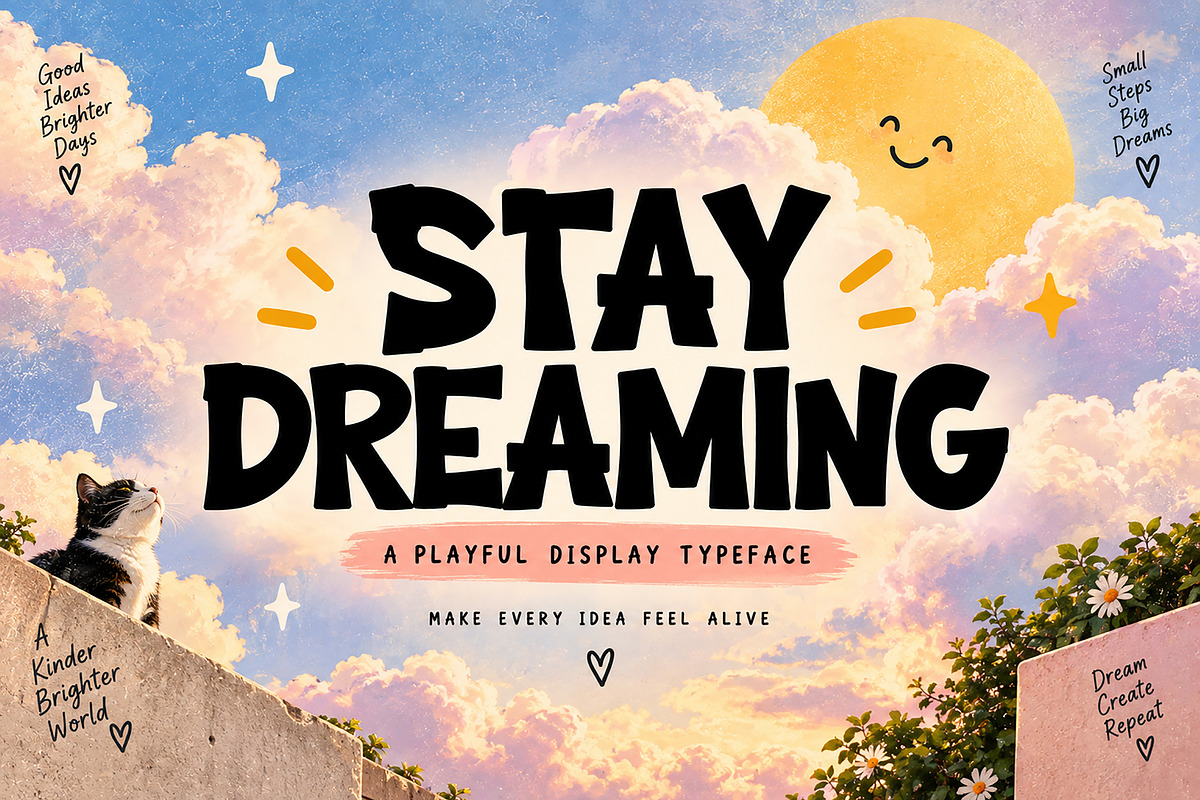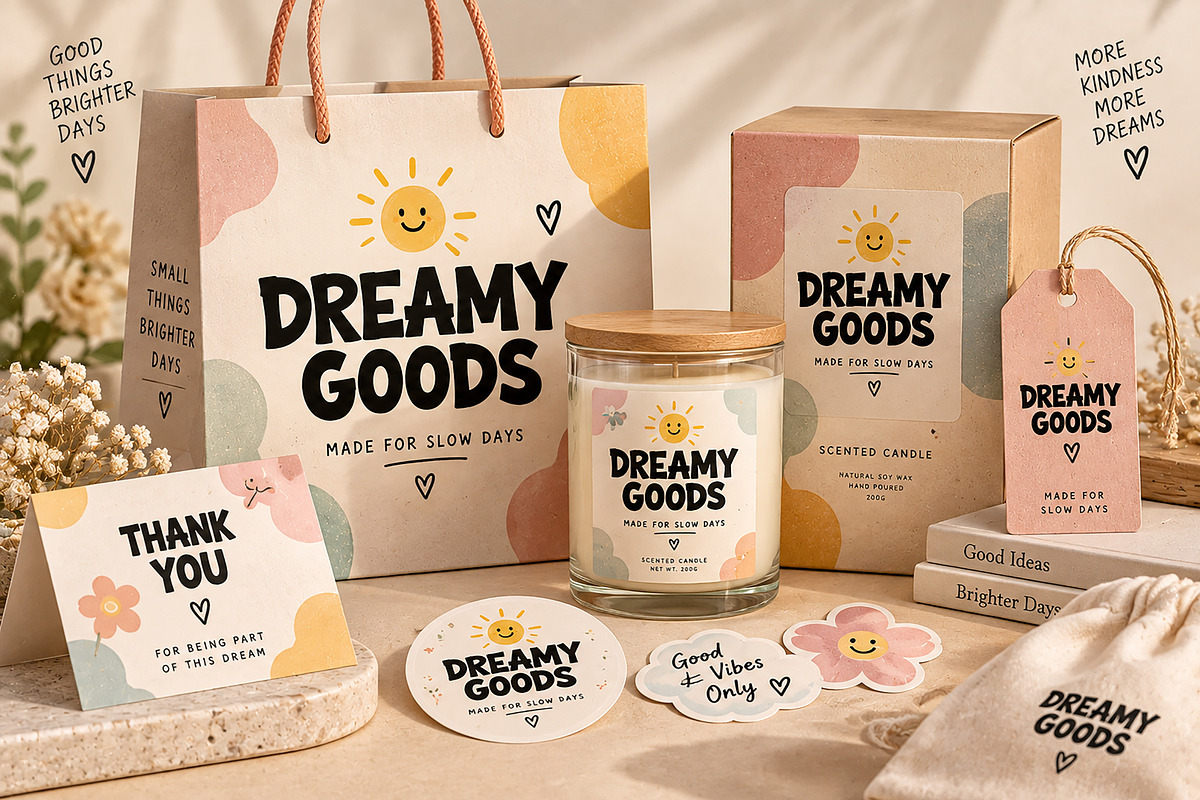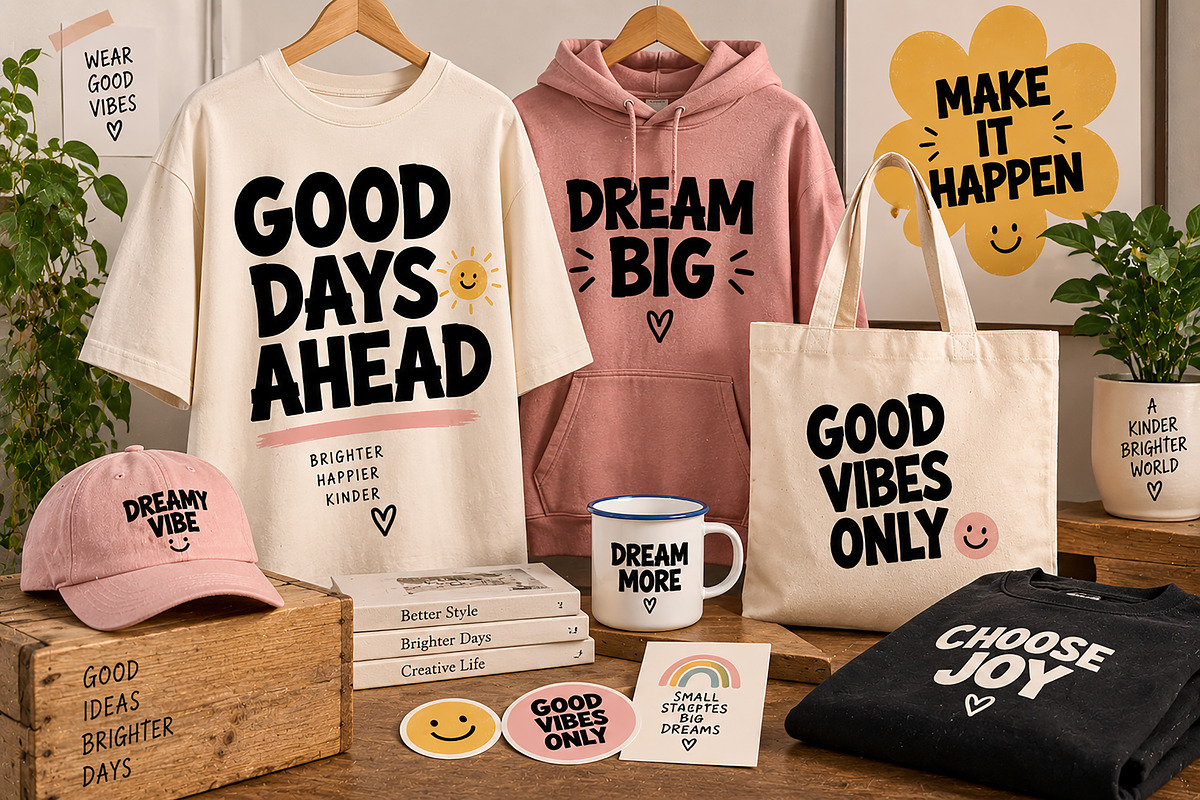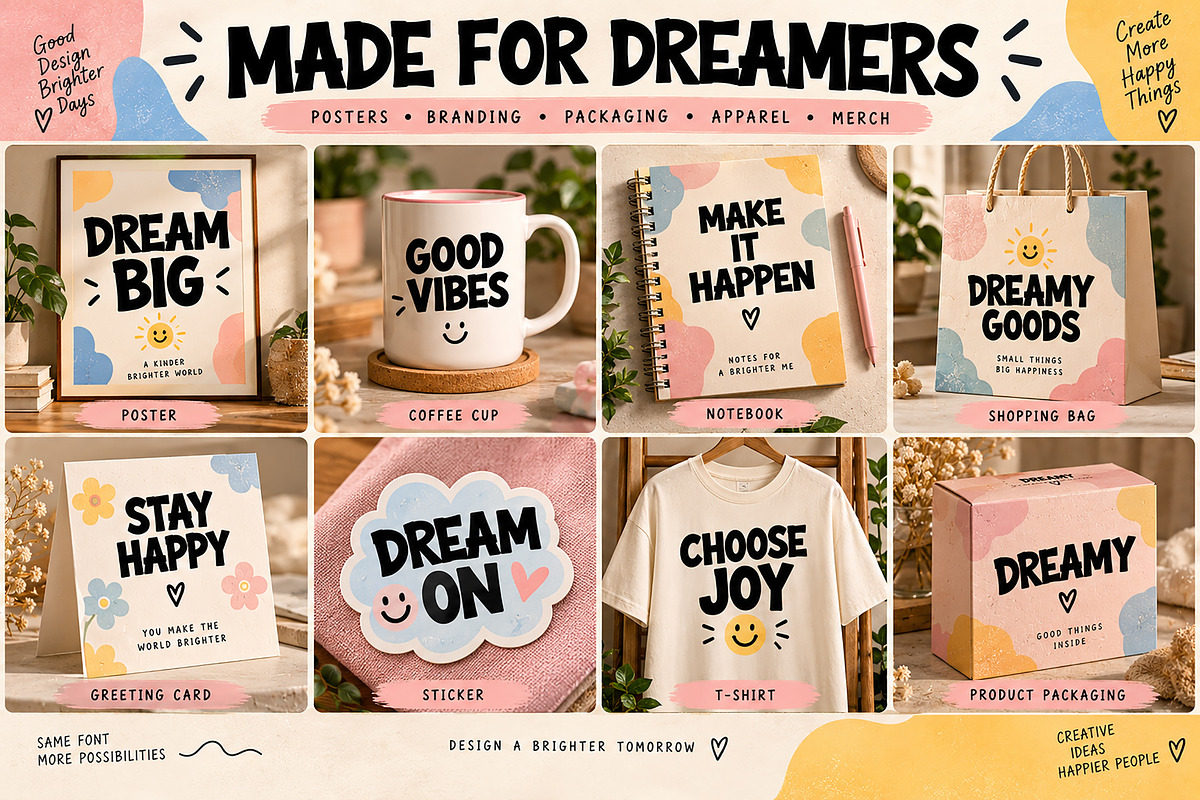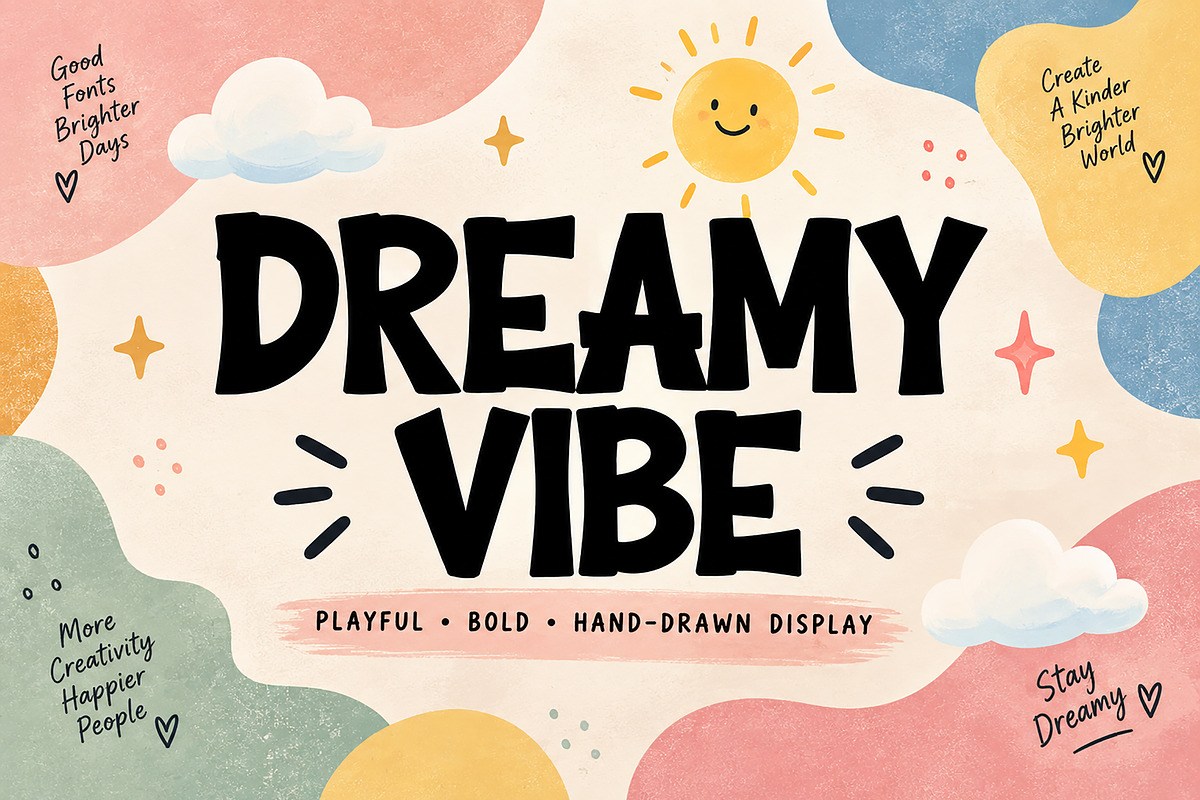
Dreamy Vibe
DREAMY VIBE is a bold, playful, and expressive display font designed to bring personality, energy, and a fun handmade feel to your creative projects. With its chunky shapes, irregular letterforms, and friendly visual character, this typeface is perfect for designs that need to feel modern, youthful, cheerful, and eye-catching.
DREAMY VIBE works beautifully for posters, branding, logos, apparel, packaging, stickers, social media graphics, greeting cards, invitations, merchandise, editorial designs, quotes, and creative advertising.
Its strong display presence makes it especially effective for headlines, short phrases, product names, and attention-grabbing typography.
Logo & Branding
Posters & Headlines
T-Shirts & Apparel
Stickers & Labels
Greeting Cards
Invitations
Editorial Design
Quotes & Typography Artwork
Creative Advertising
Font Name: DREAMY VIBE
Style: Bold / Playful / Hand-Drawn Display
Bring a bold, playful personality to your next design with DREAMY VIBE.